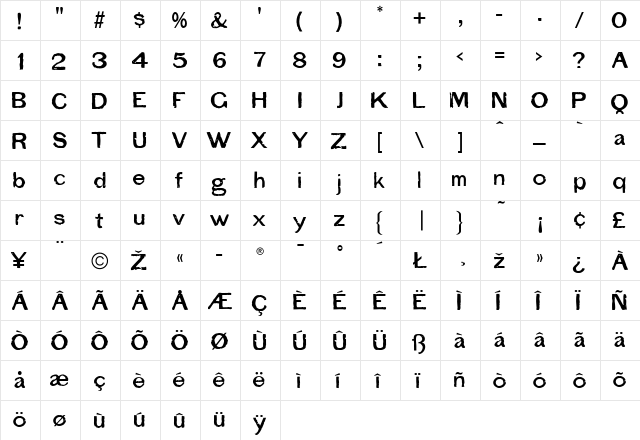
WarehouseGothic Regular
Design Context for WarehouseGothic Typeface
WarehouseGothic has the quiet confidence of well-executed sans-serif typography: versatile, unobtrusive, and dependable at any size.
Font Pairing: Works well alongside a characterful serif or display font that can carry the expressive load while WarehouseGothic handles the functional copy.
Pro Tip: Use WarehouseGothic for UI labels, navigation, and short-form body copy where clean legibility is the priority.